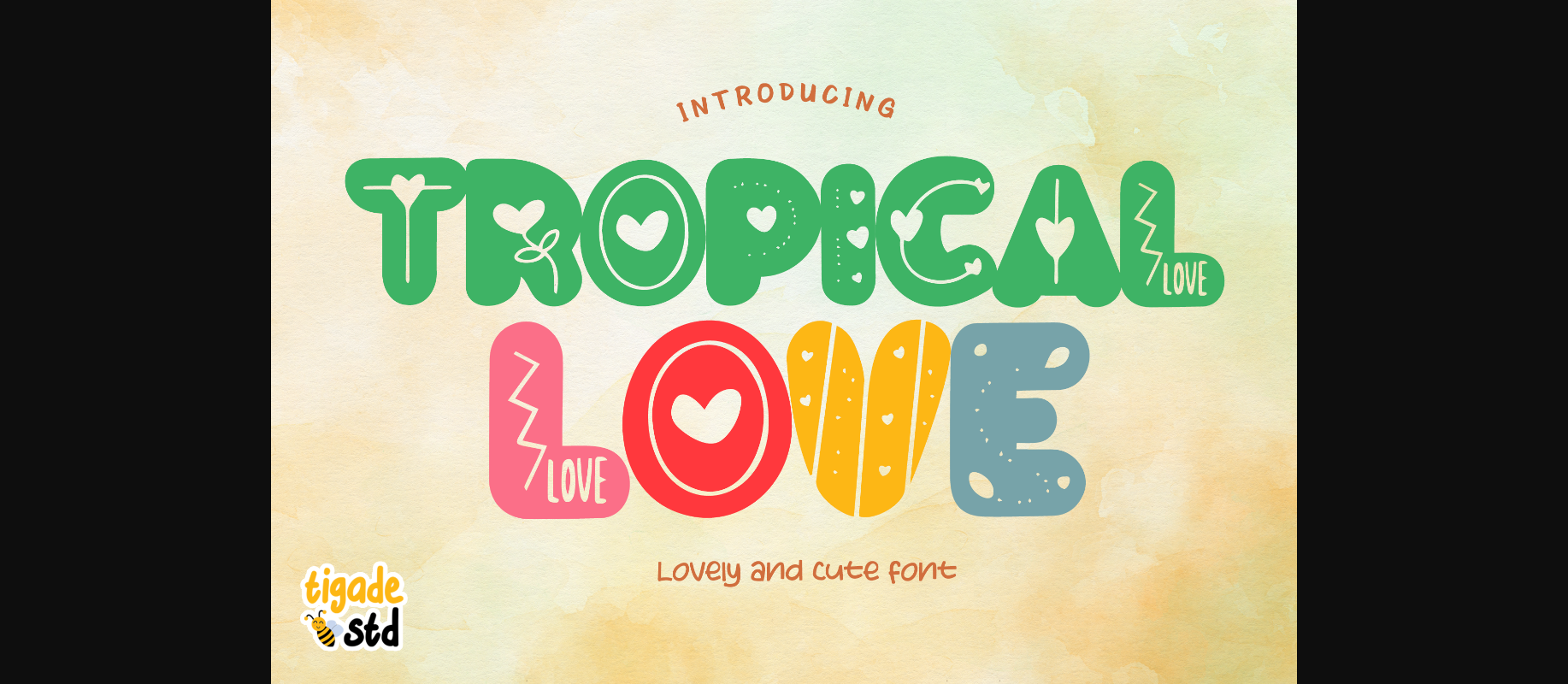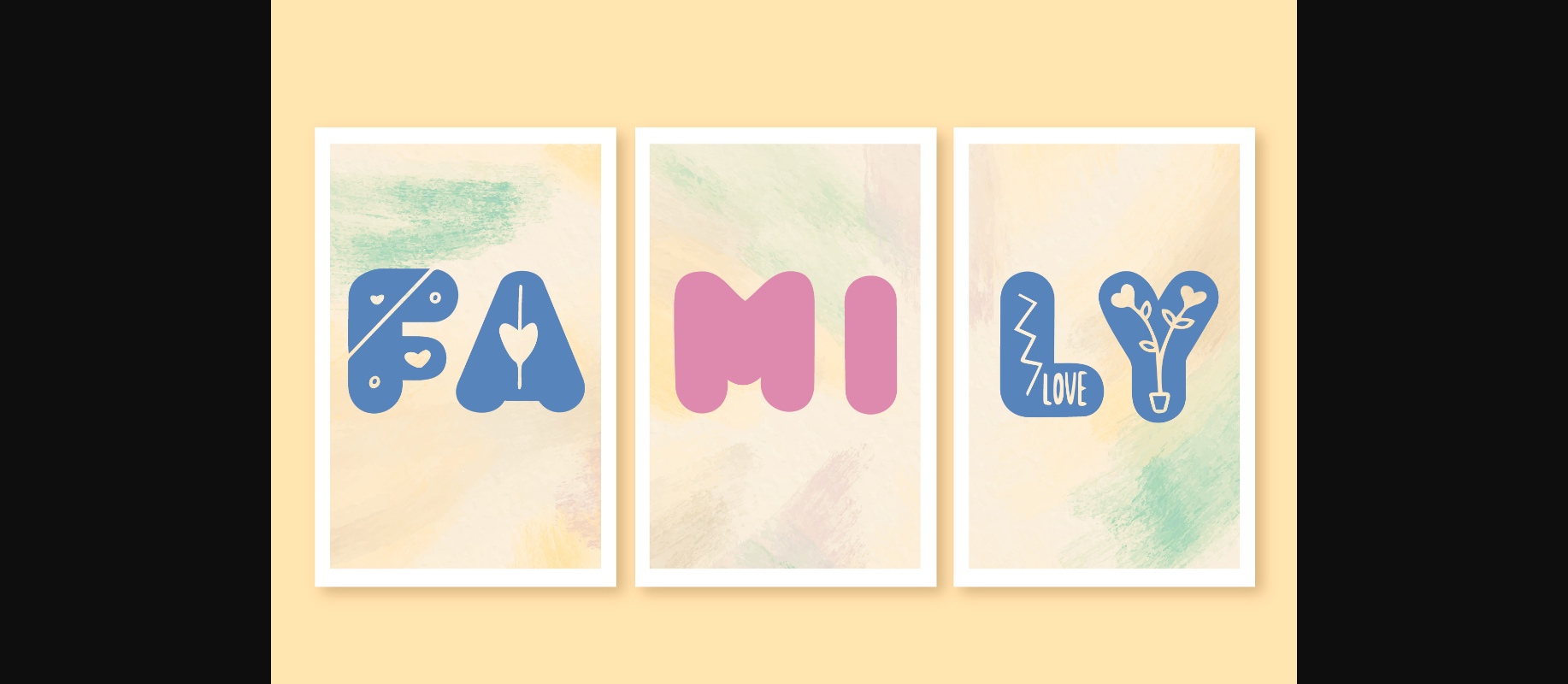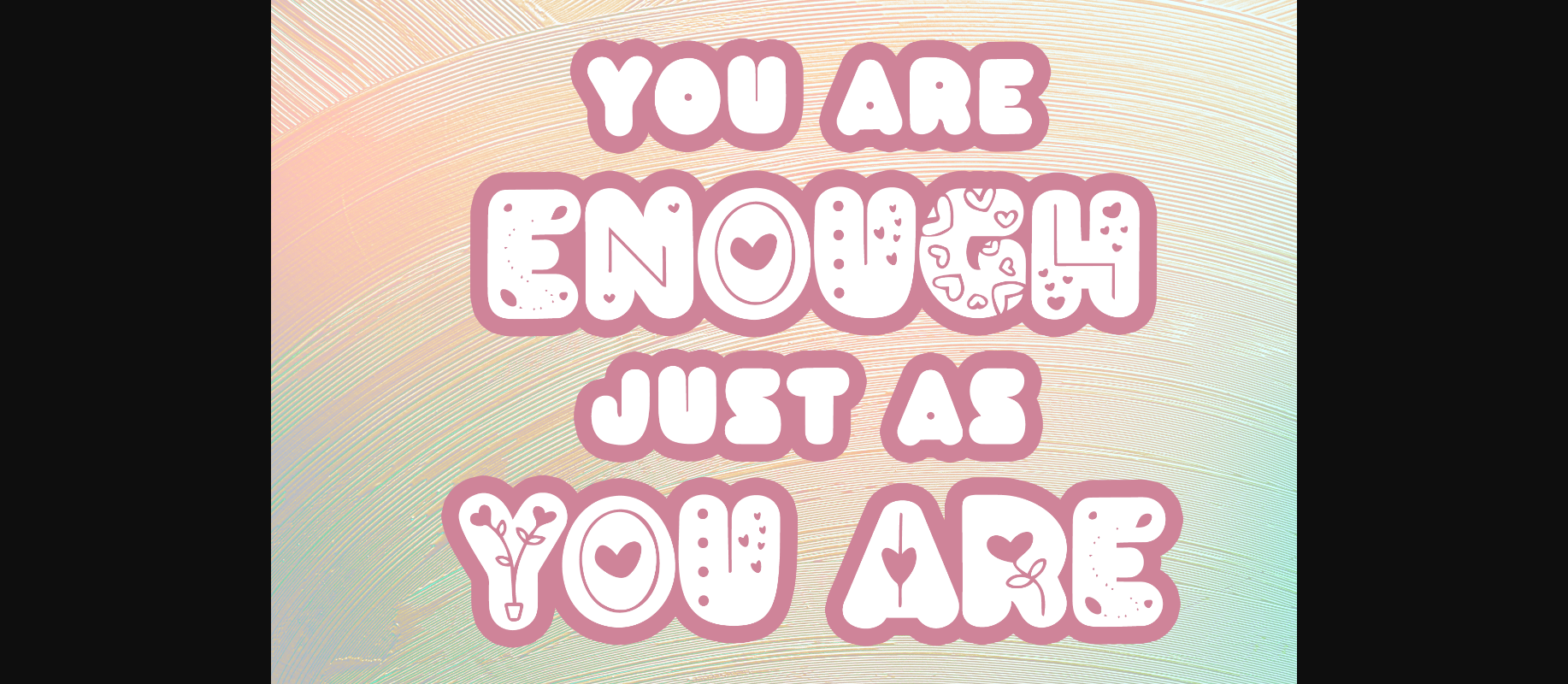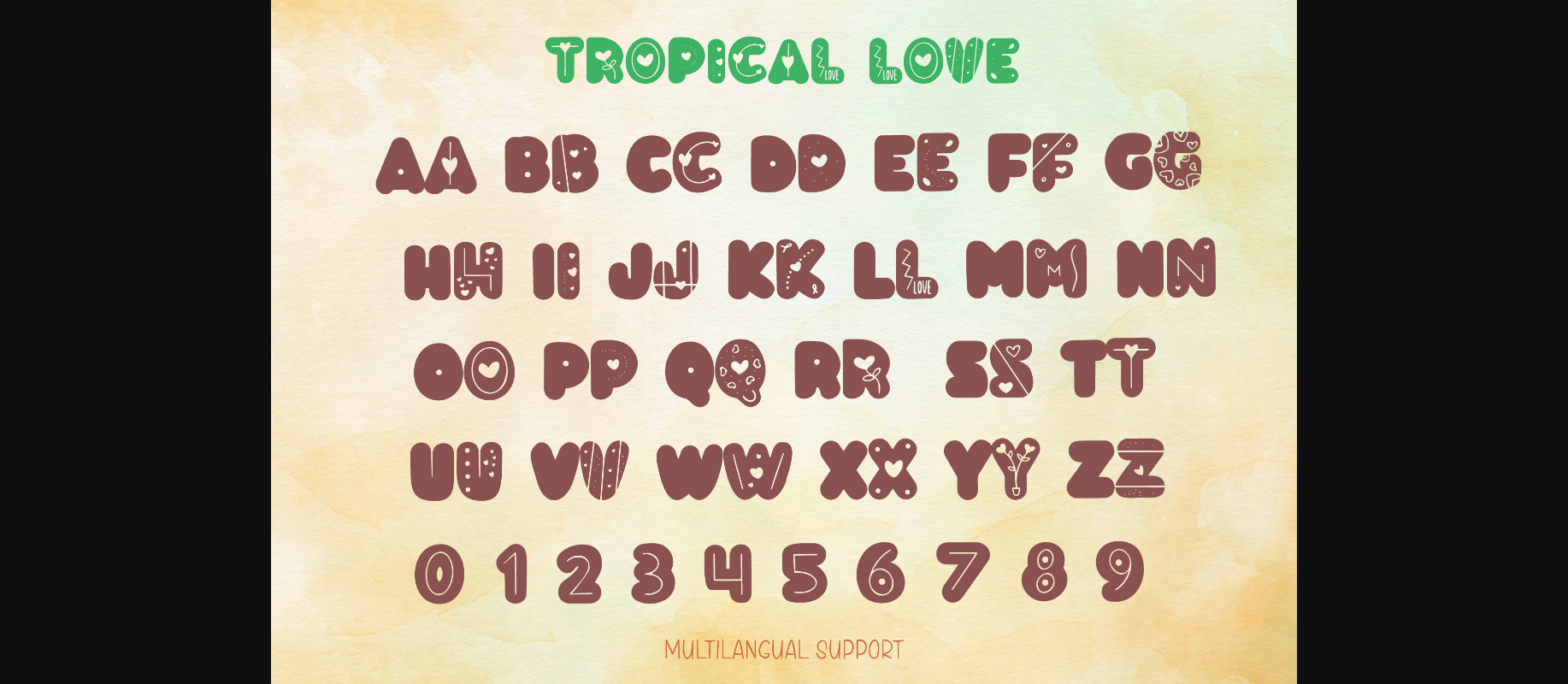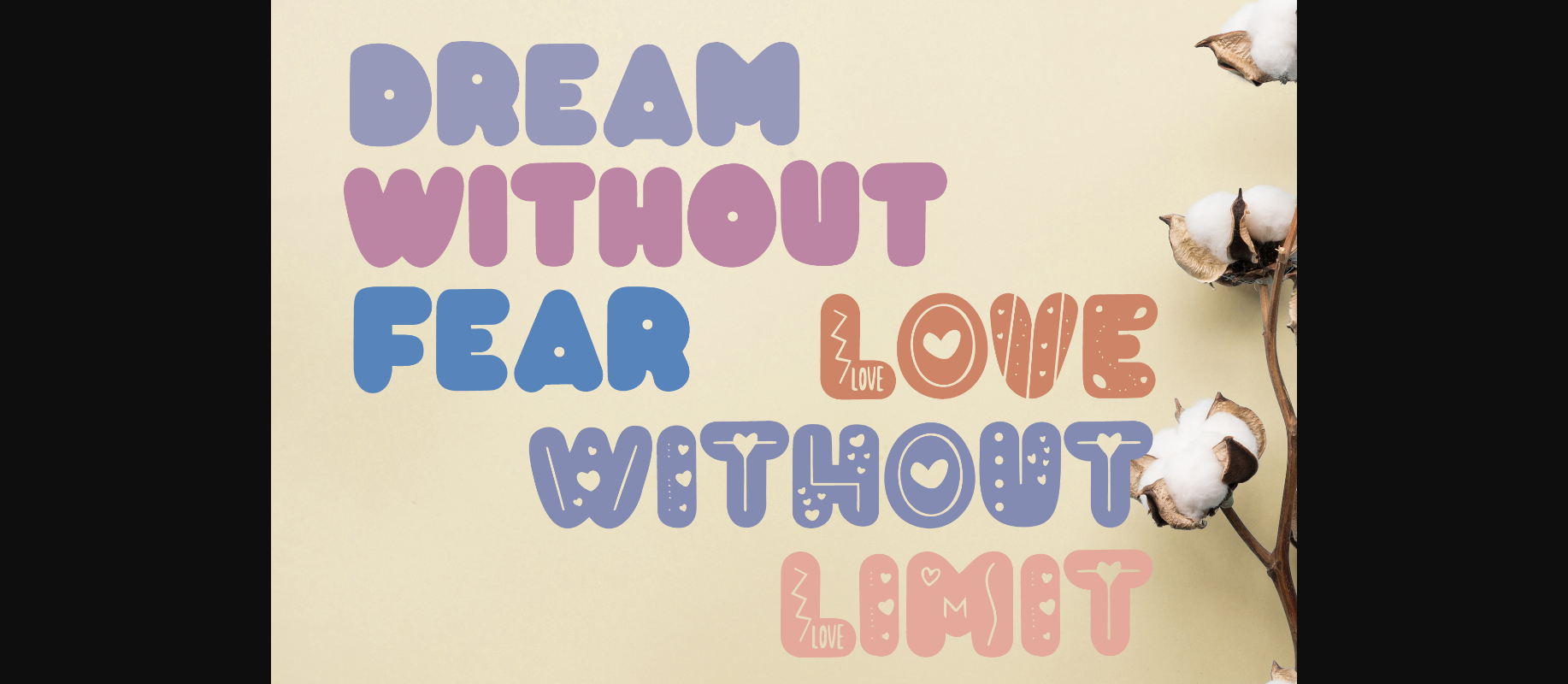
About Tropical Love Font
Tropical Love is a cute, quirky and friendly decorative font. Whether you are using it for cartoon-related designs, children games, quotes, titles, brand names, book covers, posters, or just any creation that requires a touch of joy, this font is a great choice.